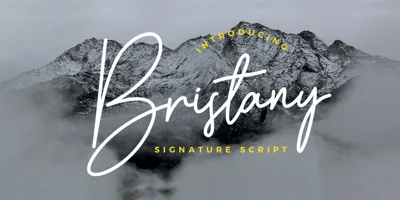
Bristany Font
Bristany Font is perfect for elegant feminine branding, sophisticated wedding invitations, luxury beauty product packaging, graceful fashion boutiques, refined jewelry catalogs, upscale salon signage, delicate floral arrangements, premium spa materials, elegant lifestyle magazines, sophisticated women's brands, graceful dance studios, and refined feminine communications. This exquisite typeface brings sophisticated femininity to projects requiring elegant grace and refined beauty appeal.
What makes Bristany Font so exciting is its exceptional ability to embody refined feminine elegance through beautifully crafted letterforms that capture the essence of sophisticated grace and timeless feminine beauty. The font features delicately structured characters with graceful curves and elegant proportions that mirror the refined sophistication and gentle strength found in classic feminine design traditions. Its sophisticated character conveys elegance and refinement while maintaining excellent readability, making it perfect for brands seeking to communicate feminine sophistication, elegant beauty, and the graceful power of refined femininity with authentic elegant charm.
The Bristany Font family includes multiple elegant weights and femininity-inspired variations that showcase its sophisticated character while providing comprehensive design flexibility for various luxury and feminine applications. Each variant maintains the original's graceful elegance while offering extensive options for creating refined typographic compositions that celebrate feminine beauty and sophisticated grace.
Whether you're developing feminine luxury brand identities, creating elegant marketing materials, or designing sophisticated communications, Bristany Font offers the perfect combination of feminine authenticity and contemporary functionality. This exceptional typeface brings genuine elegant sophistication to design projects, making it an indispensable choice for designers seeking typography that effectively communicates feminine grace, refined beauty, and the sophisticated elegance of timeless feminine design with authentic graceful refinement.